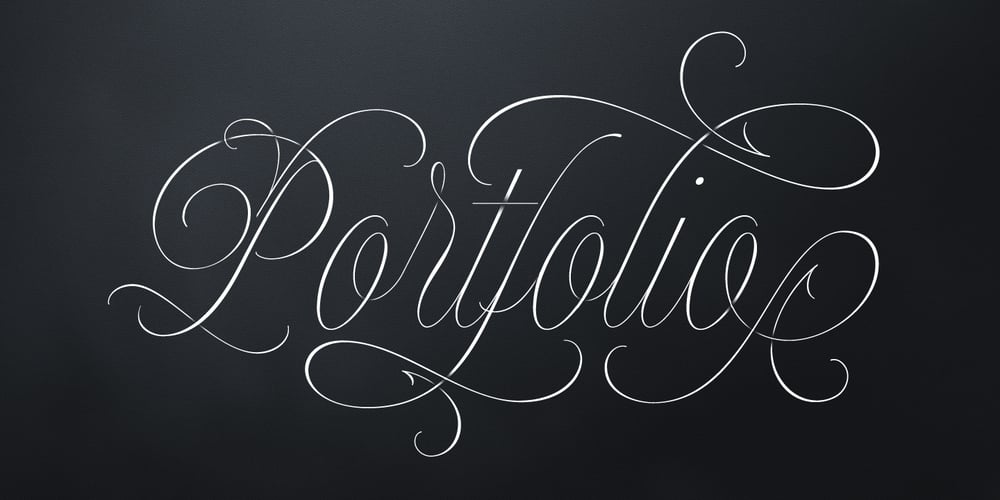
Model Font Family was designed by Maximiliano R. Sproviero and published by Sproviero Type. Model contains 8 styles and family package options. When designing a typeface, one has to be conscious of superfluous details. Although I am always tempted to add little personal touches, experience taught me that the phrase -less is more- is totally true. In Model, the letters (like models do) participated of a contest: An event in which models engage in competition against each other, often for a prize or similar incentive. The prize was staying in the font! yay! Tall, delicate, refined, the right amount of elegancy: These were some of the aspects to be chosen. Typographically speaking, these things were achieved thanks to a tall x-height (which leaded the font to be somehow condensed), a subtle contrast between thicks and thins, and just the right amount of decorative swirls. The result is a nice script that can be used in magazines, invitations, posters, book-covers and works very well when used over photographs. Get Model and let it be the star of the catwalk. STYLES Model Pro and Model Small Pro are the most complete styles of the font. Both have all the ligatures and decorative glyphs seen in posters above (OT programmed). Model Std One, Std Two and Std Three are reduced versions of Pro. This means they have less glyphs inside. TIP If you are planning to print the font in small sizes, it’s highly recommended to purchase Model Small Pro. Its thins are thicker so they will be better printed.